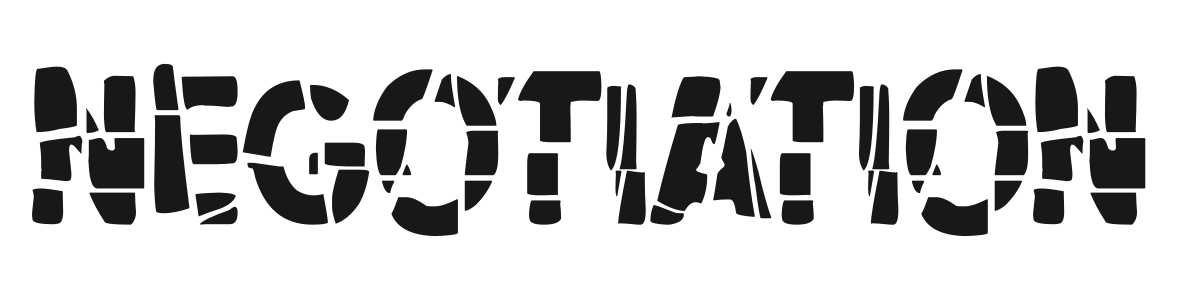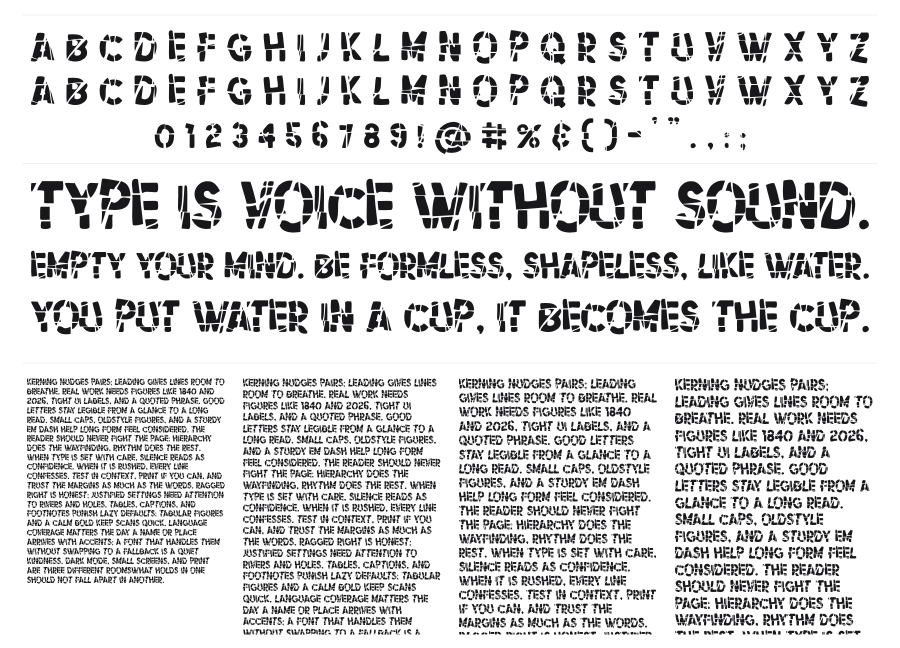
Negotiation
Negotiation is a heavy distressed display font by Woodcutter built from bold grotesque block capitals that look like they've been cracked, torn, and reassembled. The irregular fragments and missing chunks give each character a raw, explosive energy that commands attention at large sizes. It fits naturally in contexts that need aggression: band posters, protest art, streetwear graphics, game titles.